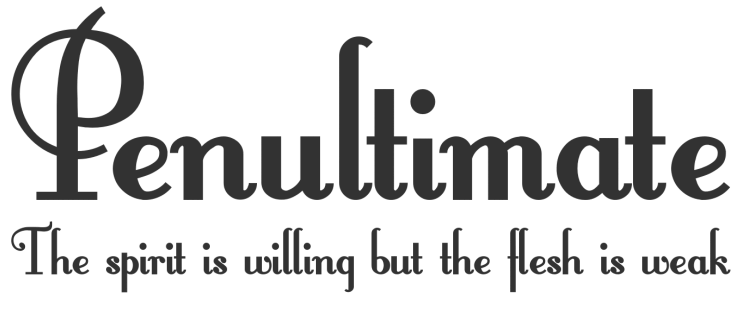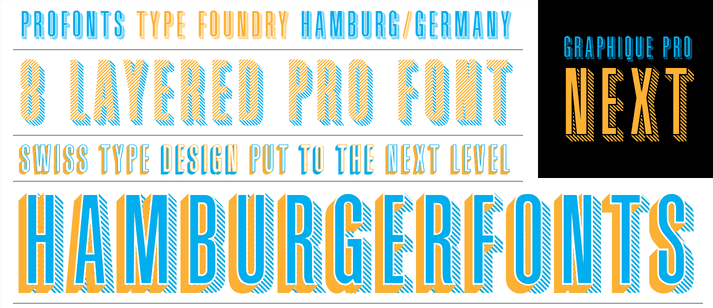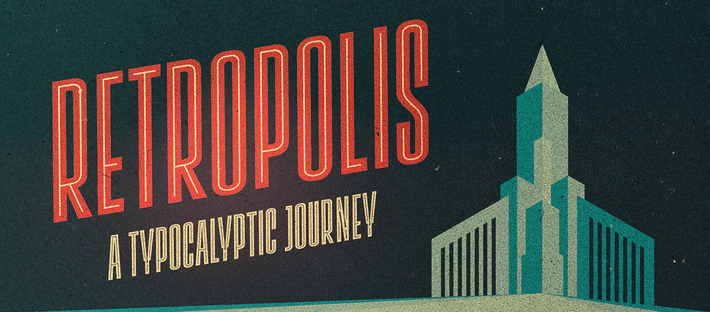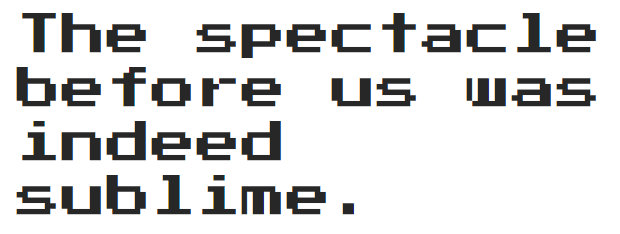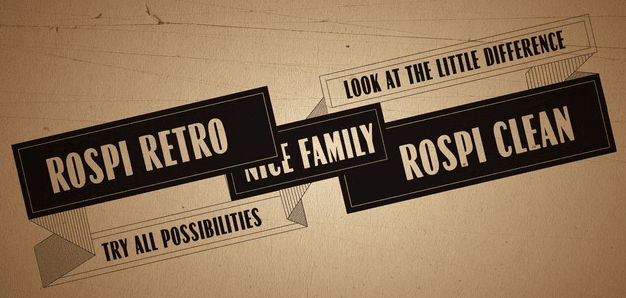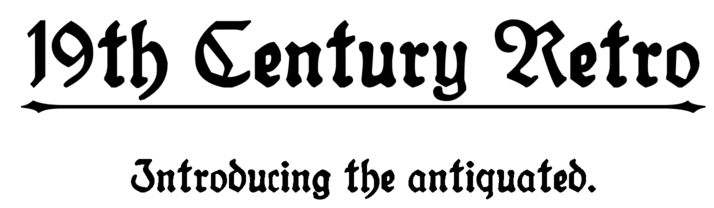
Despite the constant flow of new typefaces, every designer likes to pay homage to the classics from time to time. This fact is underscored by the hundreds – if not thousands – of retro fonts available across the web.
There are other massive font roundups out there that tackle this same topic. However, we don’t want to overwhelm you, so we decided to make this a carefully curated list and only mention high-quality fonts that truly capture the essence of a bygone era.
30 Retro Fonts for Timeless Designs
We selected each of the fonts below with two criteria in mind: a retro look based on past art styles and fashions, and high quality – which is to say, these are fonts that we would feel comfortable using ourselves.
1. Riesling
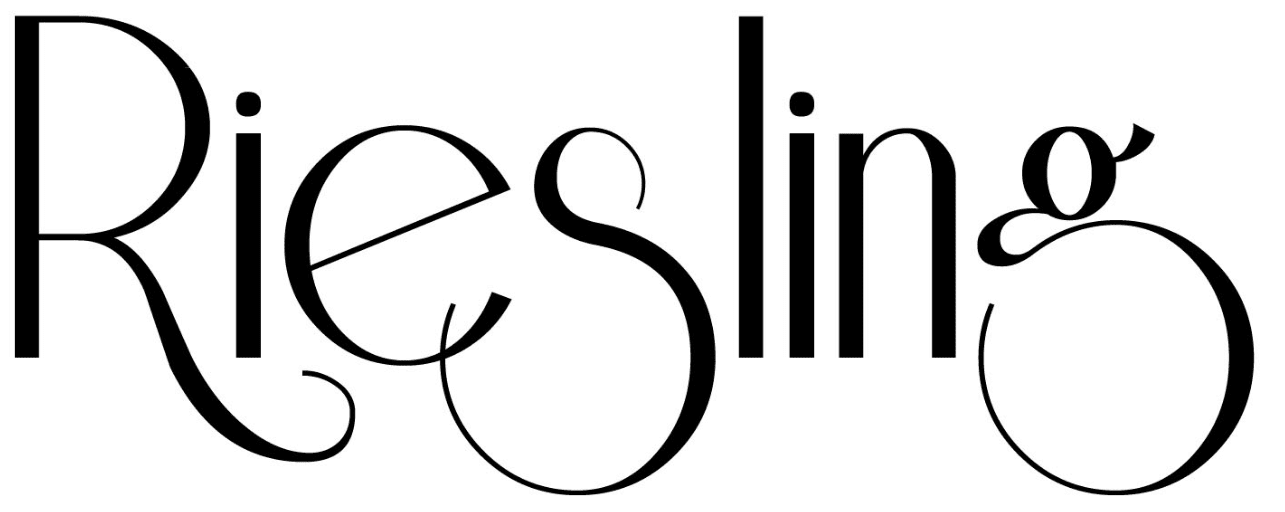
Riesling is a unique and playful font with long, looping tails, slanted eyes, and an overall airy feeling to it. It was inspired by Art Deco and created by the now defunct Bright Ideas foundry, which went out of business during the early 2000s.
2. Echo Deco
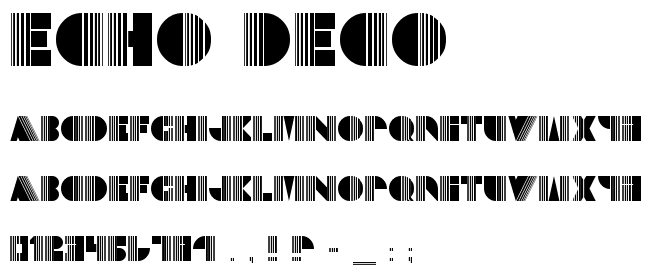
Echo Deco is another Art Deco inspired font. This one stands out thanks to the unique detail applied to each of its lines. The letters that make up this font consist of solid figures combined with a mix of thick and thin strokes that work together to create an interesting visual effect.
3. Bellerose Light
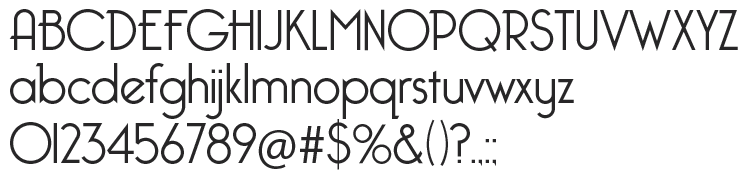
Bellerose Light is an Art Deco font with solid pedigree. It’s been downloaded over 3,000,000 times worldwide and is used by renown companies such as Mattel and Simon & Schuster.
4. Parisish
This font pays homage both to the timeless French capital and its classic typography, and it wouldn’t look out of place on the billboard of a theater or a cafe’s menu.
5. Allstar
Allstar is a tribute to the classic athletic lettering that was so commonplace during the 90s and remains popular to this day. This big, geometric font is a great fit for any sport-themed design.
6. Hollywood Hills
This is the classic Hollywood Hills font on a much smaller scale. The lettering is instantly recognizable, making Hollywood Hills a perfect fit for media websites or designs for the film industry.
7. Dancing Script
Dancing Script is a tribute to several popular typefaces from the 50s. It’s a lively font in which each letter varies slightly in size, giving it an attractive, casual look.
Despite its whimsical name, Cookie features a classic style based on brush calligraphy. It’s author designed it with ad and pin-up styles from the 50s in mind, and it’s easy to conjure up images from this era while considering Cookie’s simple strokes.
9. Monoton
Monoton is a unique take on the metal press fonts of the early 1930s. Its imposing lines would look right at home on a neon sign and it’s a great choice for large display lettering.
10. Tangerine
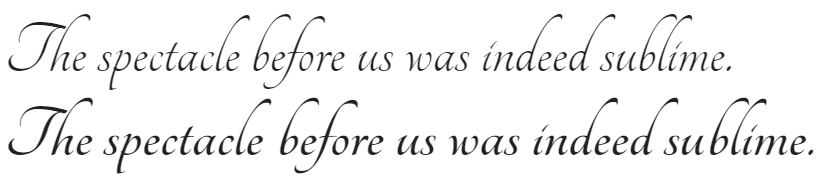
Tangerine was inspired by 16th and 17th-century italic chancery hands – a cursive style of writing that was originally developed within the Catholic Church in the 13th century and used to notate business transactions, and which would later serve as the foundation for modern italic typefaces.
11. Sacramento